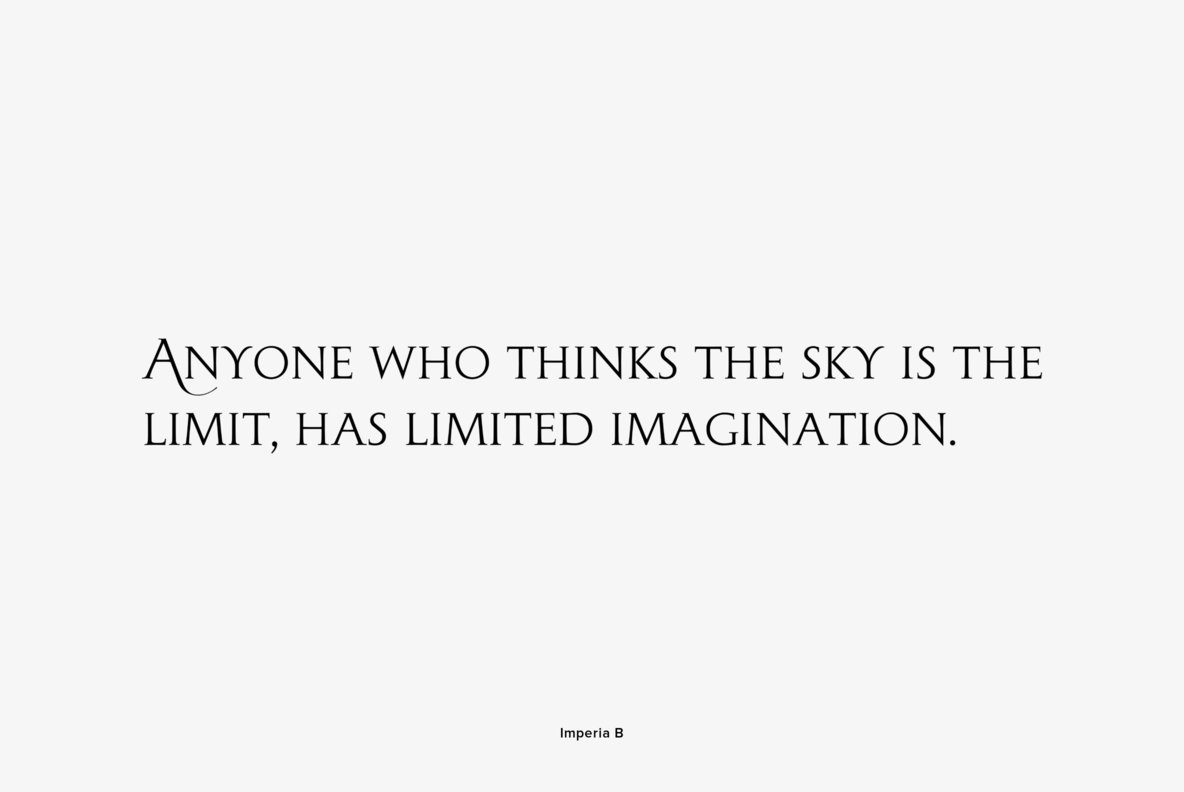
Imperia Font
"Imperia" is derived from my Classic font "Imperium" – the Roman Original from the 'Trajan column. I pushed "Imperia" a lot further, added two versions of swings. To make the family more usable threw in my own version of lowercase letters for free, Roman did not have lowercase letters of that kind! The other three cuts – A, B, C –have classic small caps.